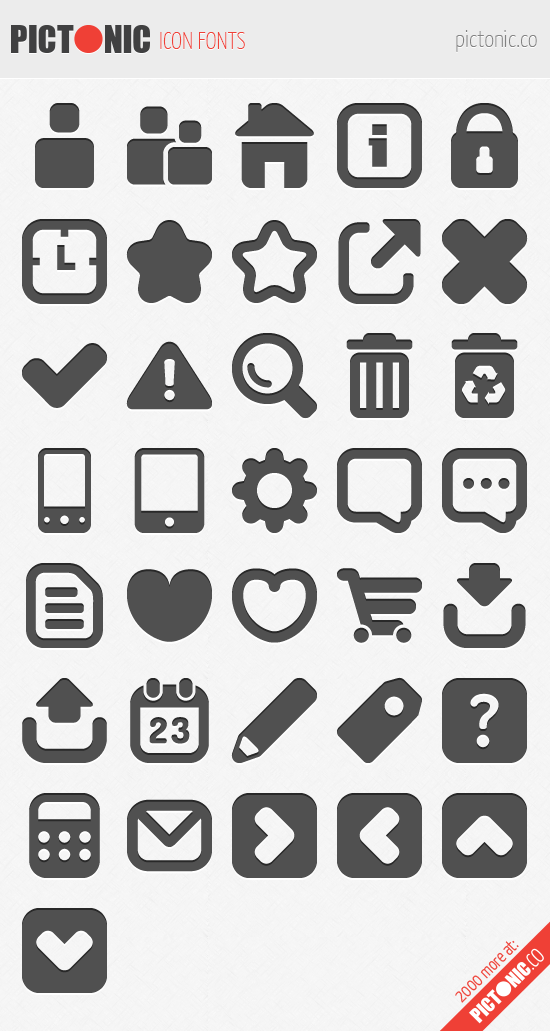
Free Icon Font: Pictonic Cube
Pictonic Cube is a free icon font set that includes the most useful UI elements for your user interface design projects. As a font, it’s very flexible. For example, you can manipulate the icons with CSS properties (e.g. color, size, shadow, etc.).
This special icon font set of cubic-shaped UI icons is exclusively designed for Six Revisions.